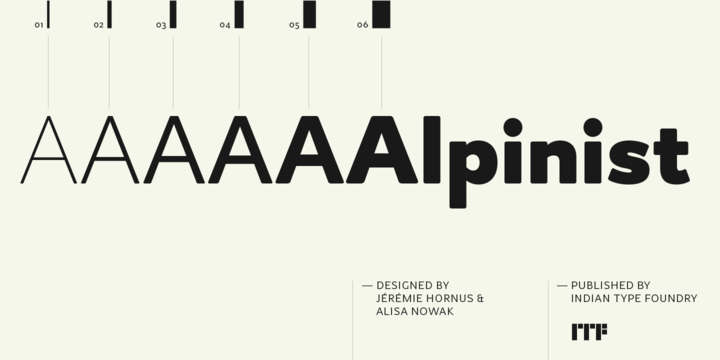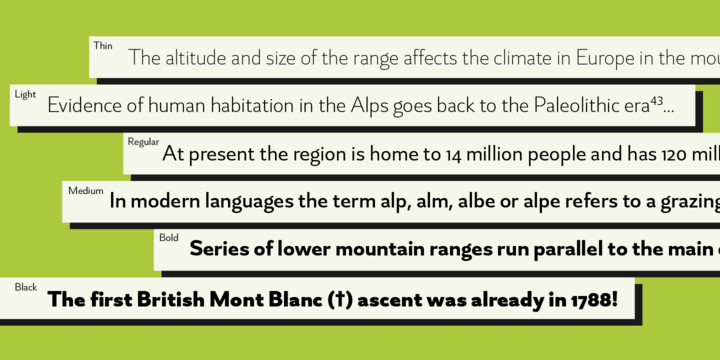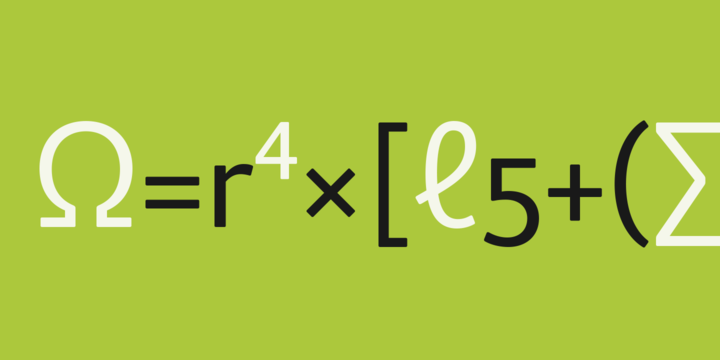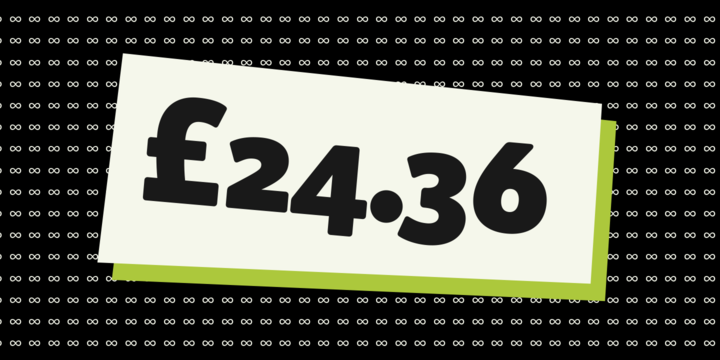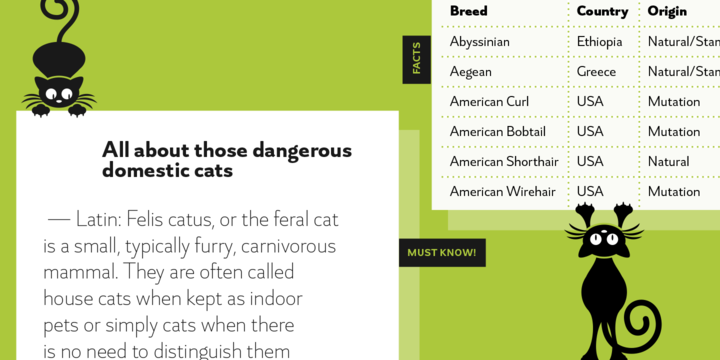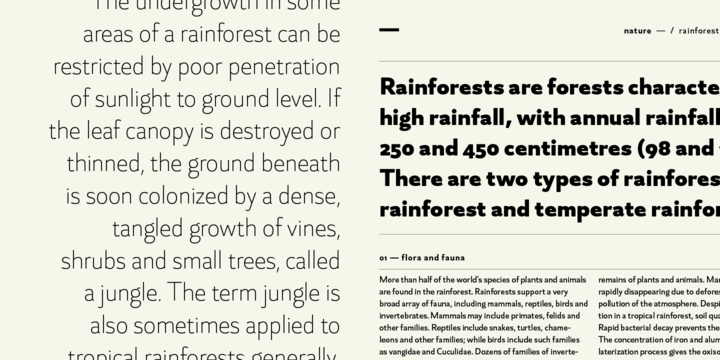
Alpinist Font Family
Alpinist is humanist sans with a small x-height optimised for magazine design and other editorial applications. The strokes of the letters have slightly rounded corners; this rounding is more apparent in the heavier weights. Alpinist’s numerals are proportional oldstyle figures. The capital letters are wide, which harmonises well with the long ascenders and descenders. Alpinist features some very distinctive letterforms: for instance, the capital ‘G’ has a beard, but no crossbar; the lowercase ‘a’ and ‘g’ are both double-storey; the ‘g’ has a flamboyant ear; the tail of the ‘y’ ends in a curve; the cedilla has a detached form.